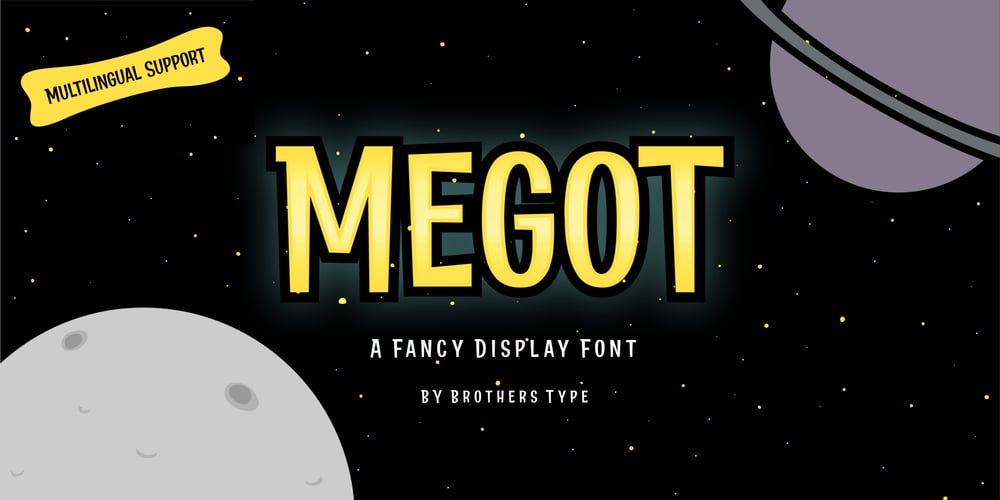
Megot Font Family was designed by Muhammad Jauhar Azmi and published by Brainware Graphic. Megot contains 1 styles and family package options. Megot is a modern fancy display font with playful feel. Comes with opentype features, Megot also supports multilingual covering Latin based language (Latin Extended Additional)